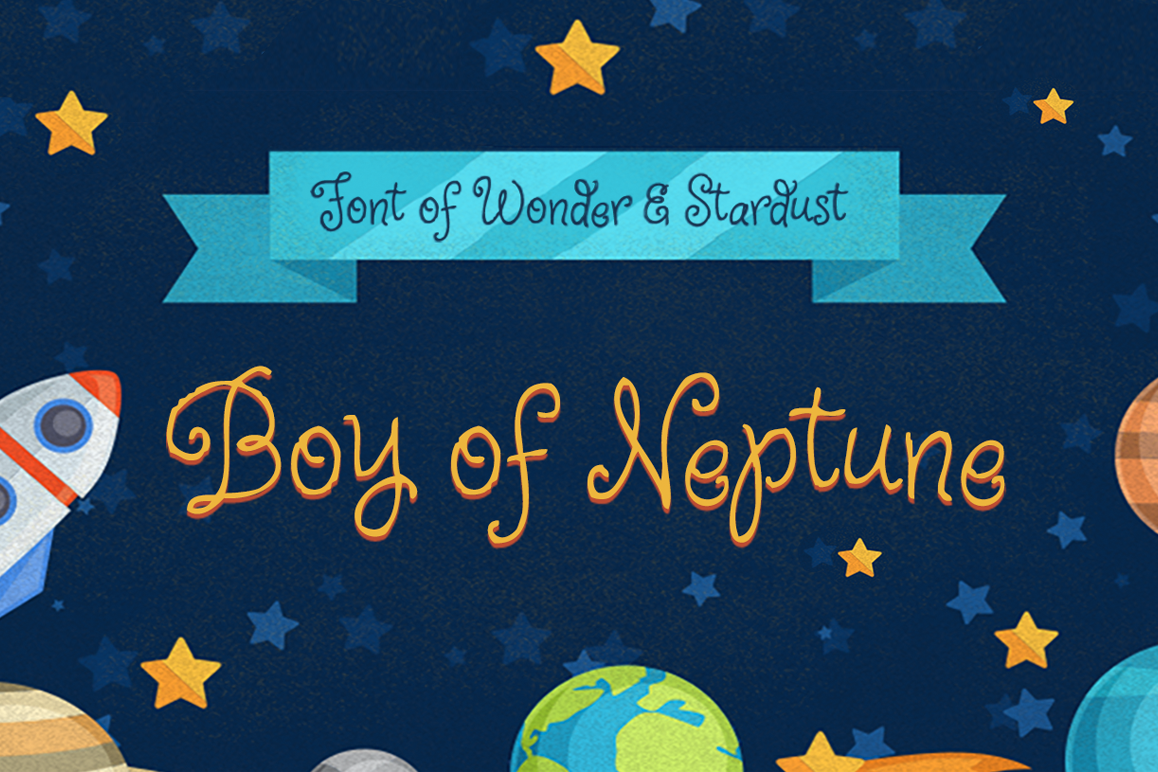
Boy of Neptune
A font of wonder and stardust created with dynamic OpenType ligatures, alternate letters and more! Full multilingual latin support. Be Wonderful!
Perfect for book titles, games, apps and children's decor or apparel.